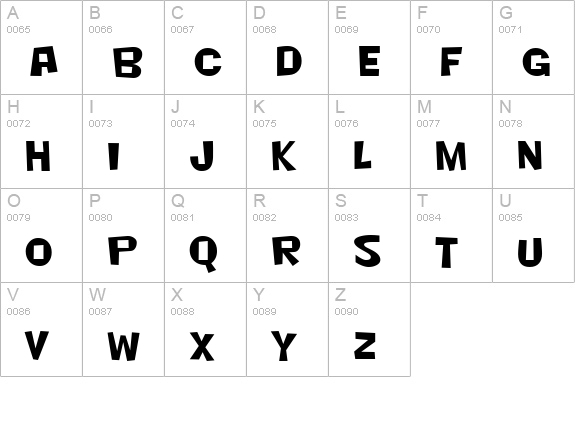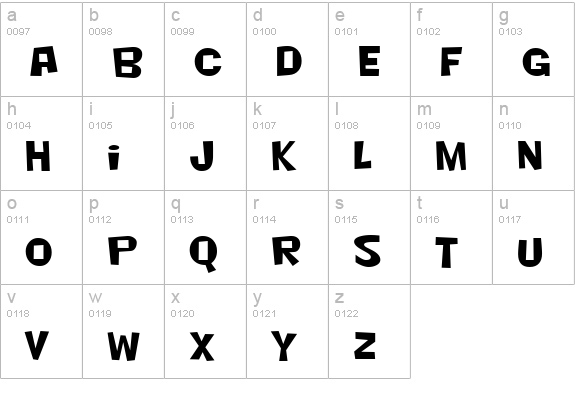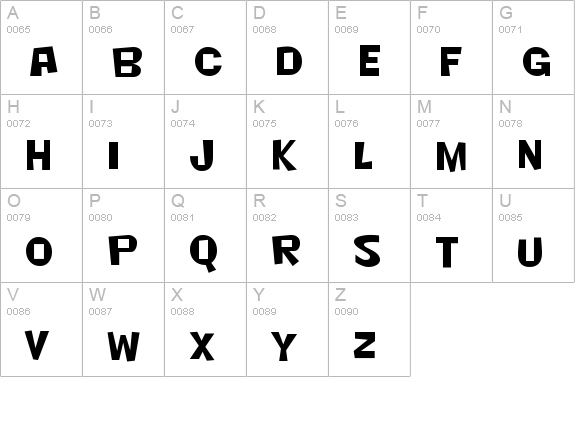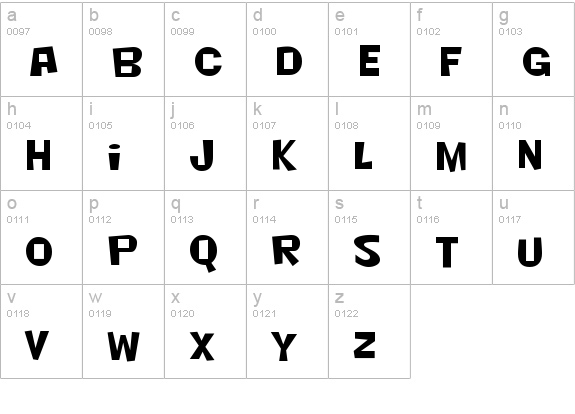
Nightclub BTN Font Details
Nightclub BTN font is a stylish and energetic typeface that exudes a vibrant nightlife vibe. With its bold and eye-catching design, this font is perfect for creating attention-grabbing headlines, posters, and invitations. The sleek lines and modern look of Nightclub BTN make it a popular choice for designers looking to add a touch of sophistication to their projects. The best part? Nightclub BTN font is available for free download at FontsMarket.com. This means you can easily access this versatile font and use it in your personal and commercial projects without any cost. So why wait? Elevate your designs with the dynamic and alluring Nightclub BTN font today!